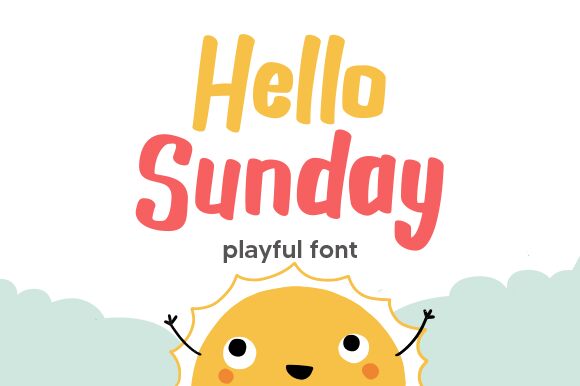
Introducing Hello Sunday, the playful marker font designed by Aldi Raya Pradipta. Its perfect for projects that require a touch of whimsy without sacrificing readability. Whether you're designing a children's book or creating eye-catching social media graphics, Hello Sunday is sure to add a fun and approachable element to your work. Let your creativity shine with this lively and energetic font that's versatile enough for any project!